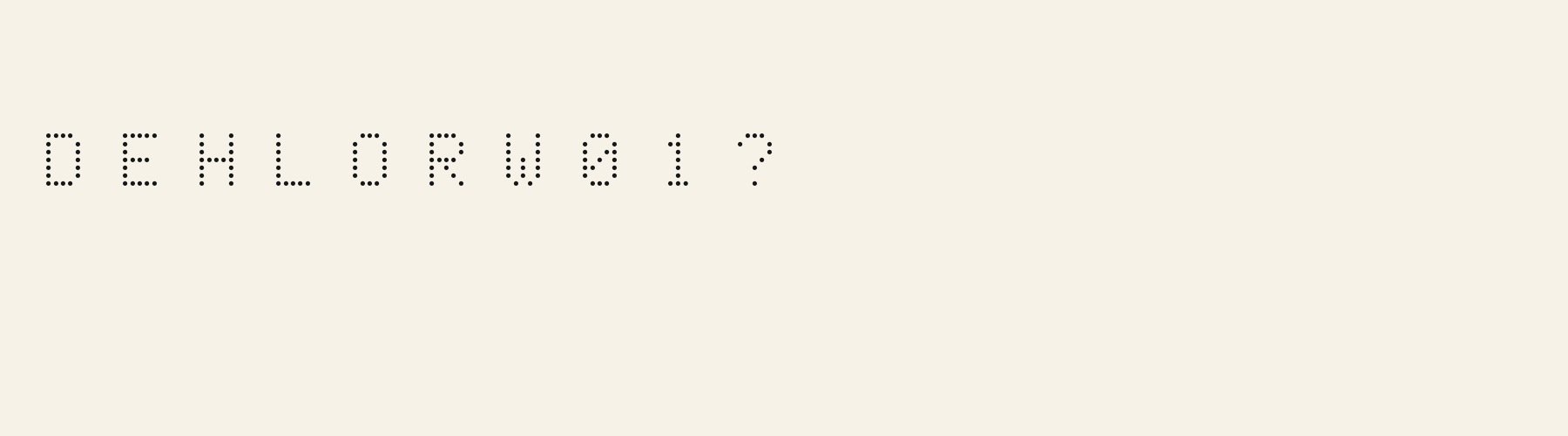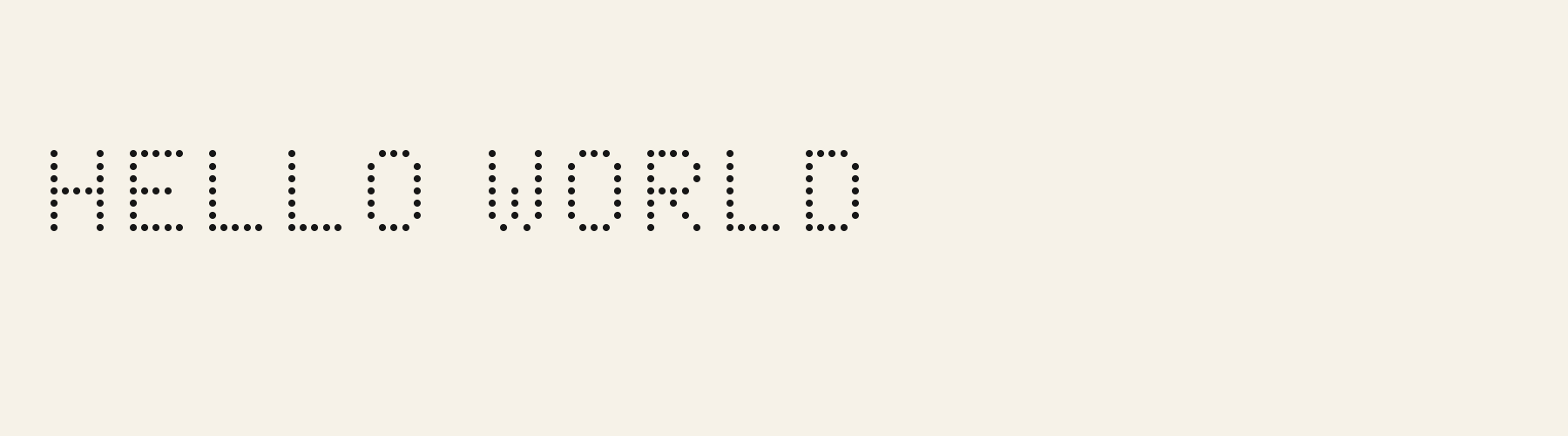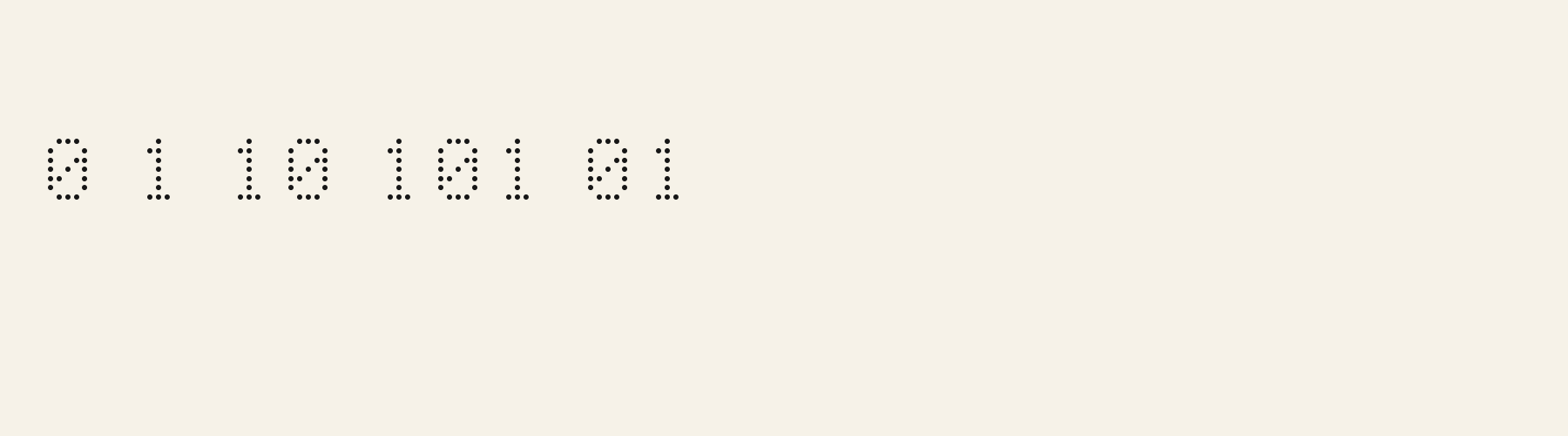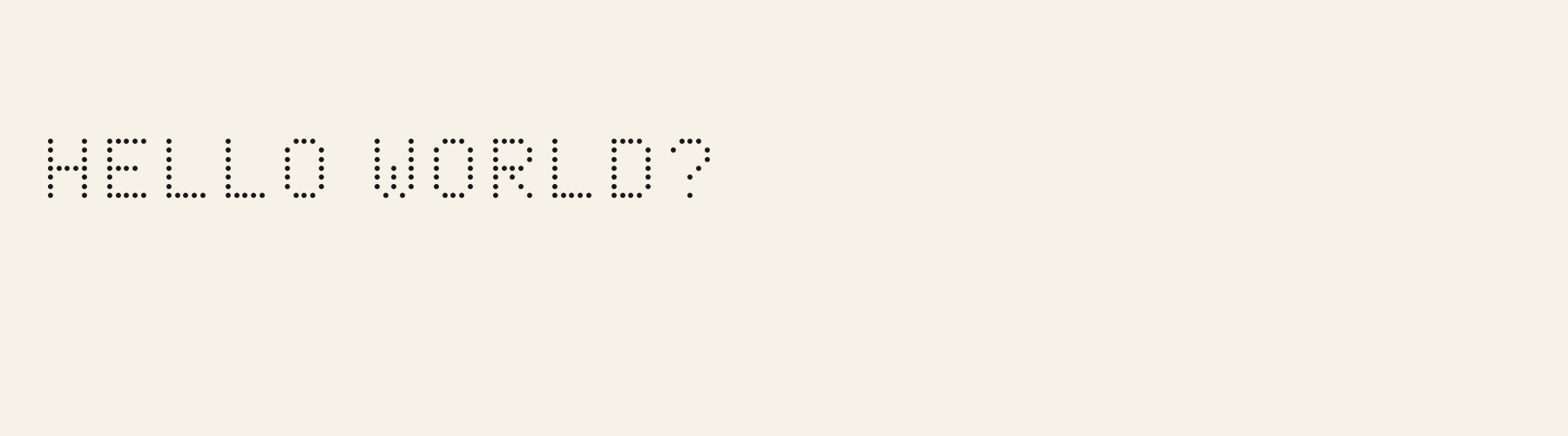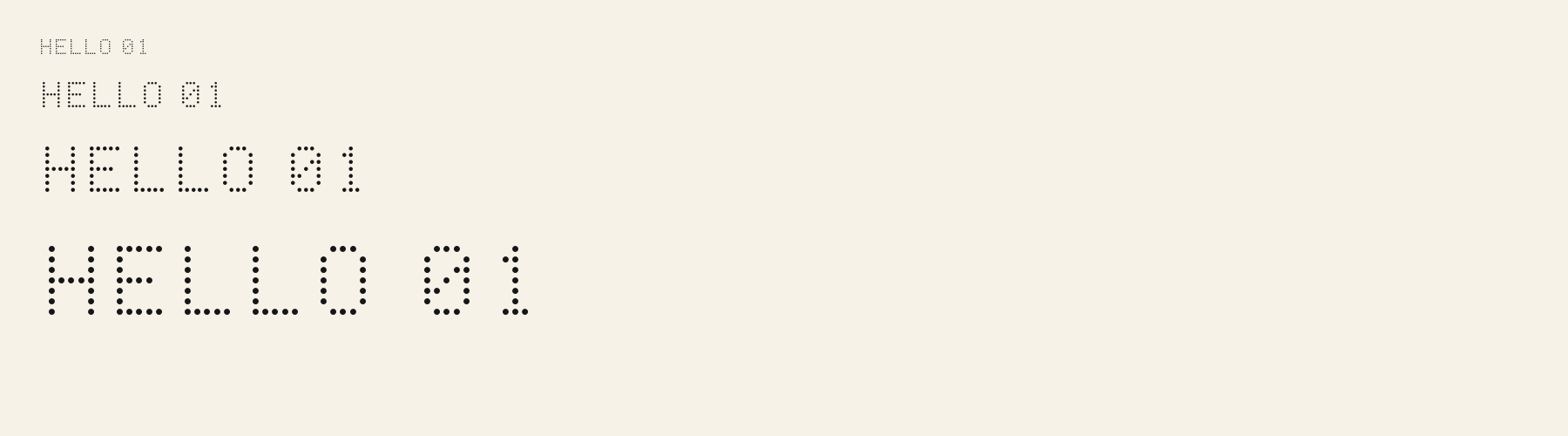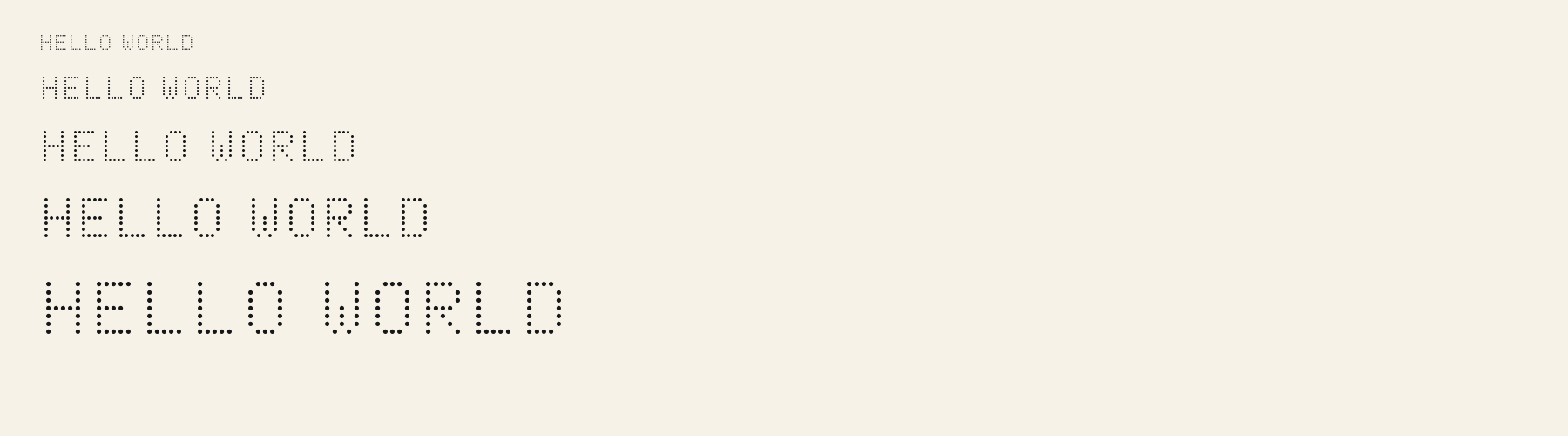
Pixel Dot Matrix Round builds a spare readout rhythm from evenly sized circular beads, with clear background showing between every mark.
Pixel Dot Matrix Round builds a spare readout rhythm from evenly sized circular beads, with clear background showing between every mark. The O has tall sides and short flat ends, with inset corner beads softening its rectangular outline. The R repeats that compact upper bowl before sending a stepped leg down and outward. The W uses upright outer columns and a shorter central rise, leaving its valleys open and angular. These interrupted strokes give the lettering a light, precise electronic mood, while the circular marks soften the otherwise rigid alignment.
Inspect the stepped R leg, the open W valleys and the distinction between O and zero in your wording. Check Latin mixed case directly, since the specimens emphasize capitals. For other scripts, verify glyph availability and appearance separately rather than extending these Latin observations.
Try this face for short headings or status labels, with a plain sans serif for explanations and navigation. Its separated beads create a visibly broken texture, so continuous companion strokes could give supporting text a calmer, denser rhythm.
W
Compare smaller and larger previews, watching whether the separate beads remain distinct and the stepped corners stay clear. The larger specimen makes the open gaps especially apparent; inspect the smaller setting in the intended layout.
Pixel Dot Matrix Round gives the phrase a sparse readout texture, with separated circular beads, narrow open bowls and angular changes of direction. Try it when the lettering should suggest an electronic status display.
Pretty Petal Soft uses solid, heavy strokes with softly flared serifs and rounded edges. Its fuller bowls and gently irregular contours suggest a warmer editorial heading, with much more continuous black shape.
The lowercase is as tall as the capitals: its x-height measures 100% of the cap height, the tallest of all 117 display fonts. Ascenders on b, d, h, k and l line up with the capitals (100% of their height), and g, j, p, q and y barely drop below the baseline. Pixel Dot Matrix Round runs 13.3% wider than the median for display fonts: an average lowercase letter, spacing included, is 98.7% as wide as the capitals are tall (an average capital, 98.7%). The o is an upright oval, 0.66 times as wide as it is tall, and every capital has the same width. O stands exactly as tall as H and sits on the baseline, with no overshoot.
Ink covers 9.2% of each lowercase letter's box (its advance width by the cap height), the lightest of all 117 display fonts. Strokes keep one thickness in every direction: the sides of o and O measure the same as their tops and bottoms.
Its 159 characters include 116 Latin letters, plus 43 figures, punctuation marks and symbols; 64 of the Latin letters are accented or special forms beyond A to Z. The word space measures 51.3% of the cap height, and the blank space either side of a lowercase letter takes up 33.4% of its width. The font carries no kerning, so spacing comes from each letter’s own side bearings. All ten figures share one width, so columns of numbers line up.